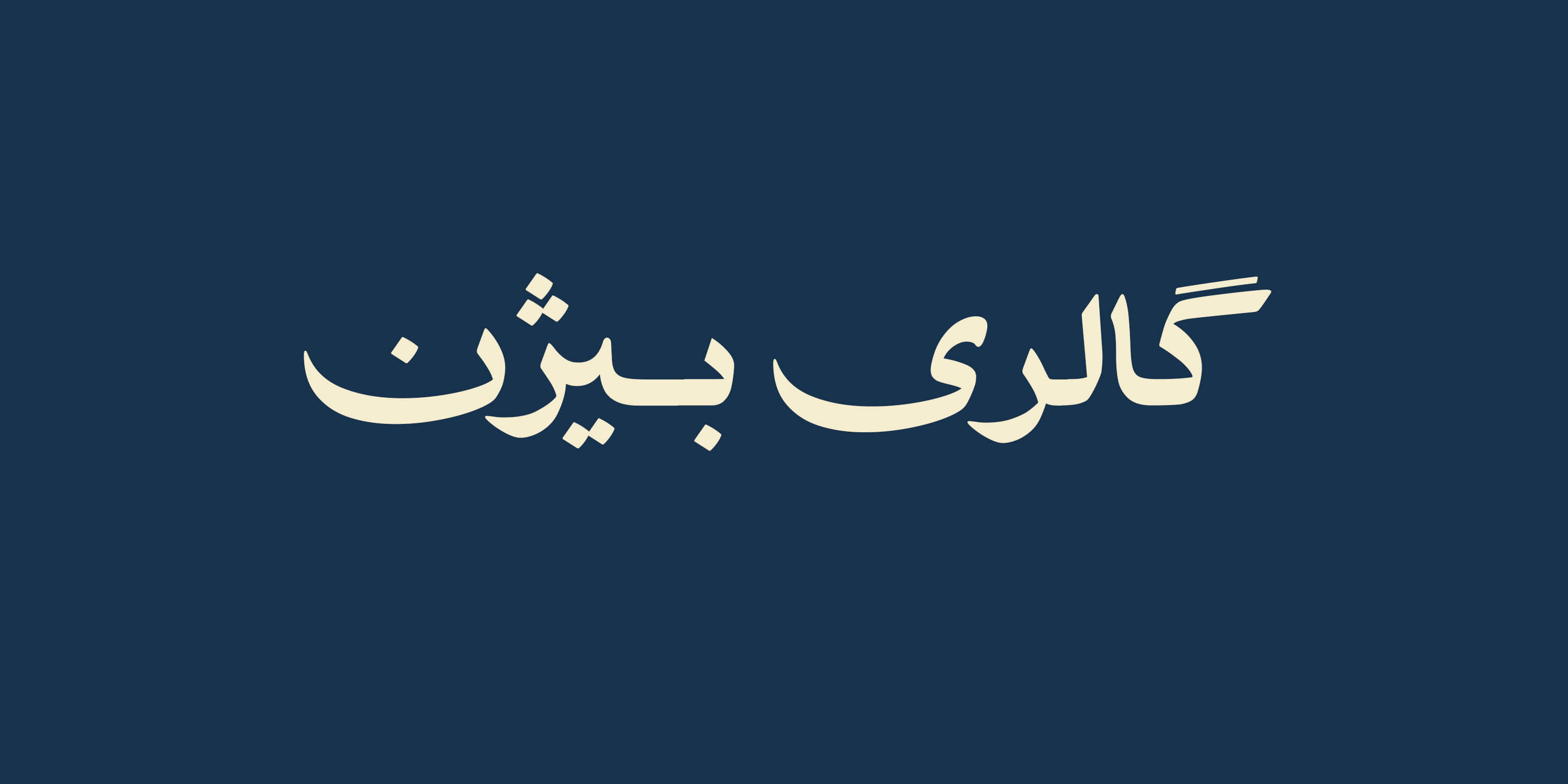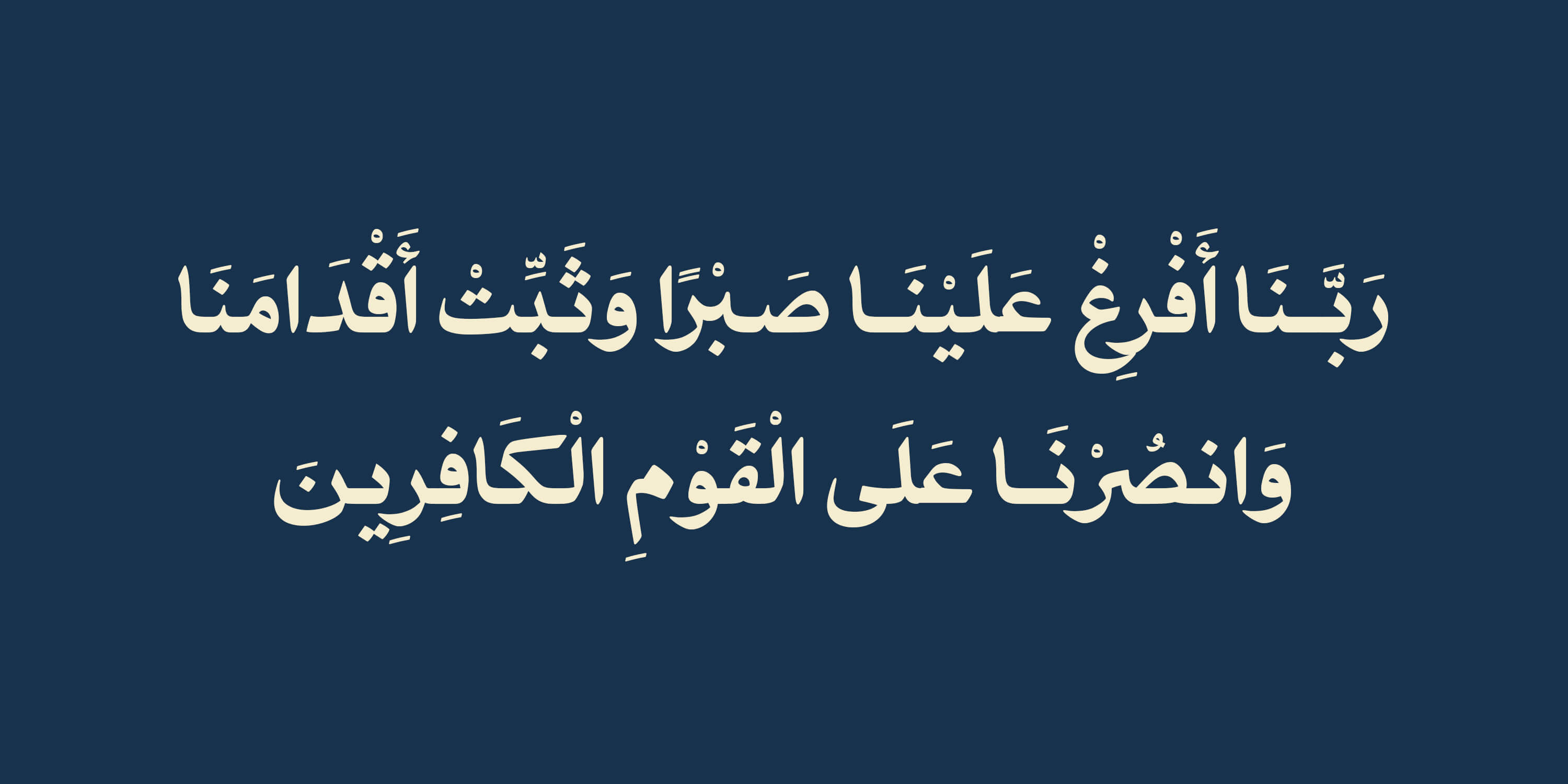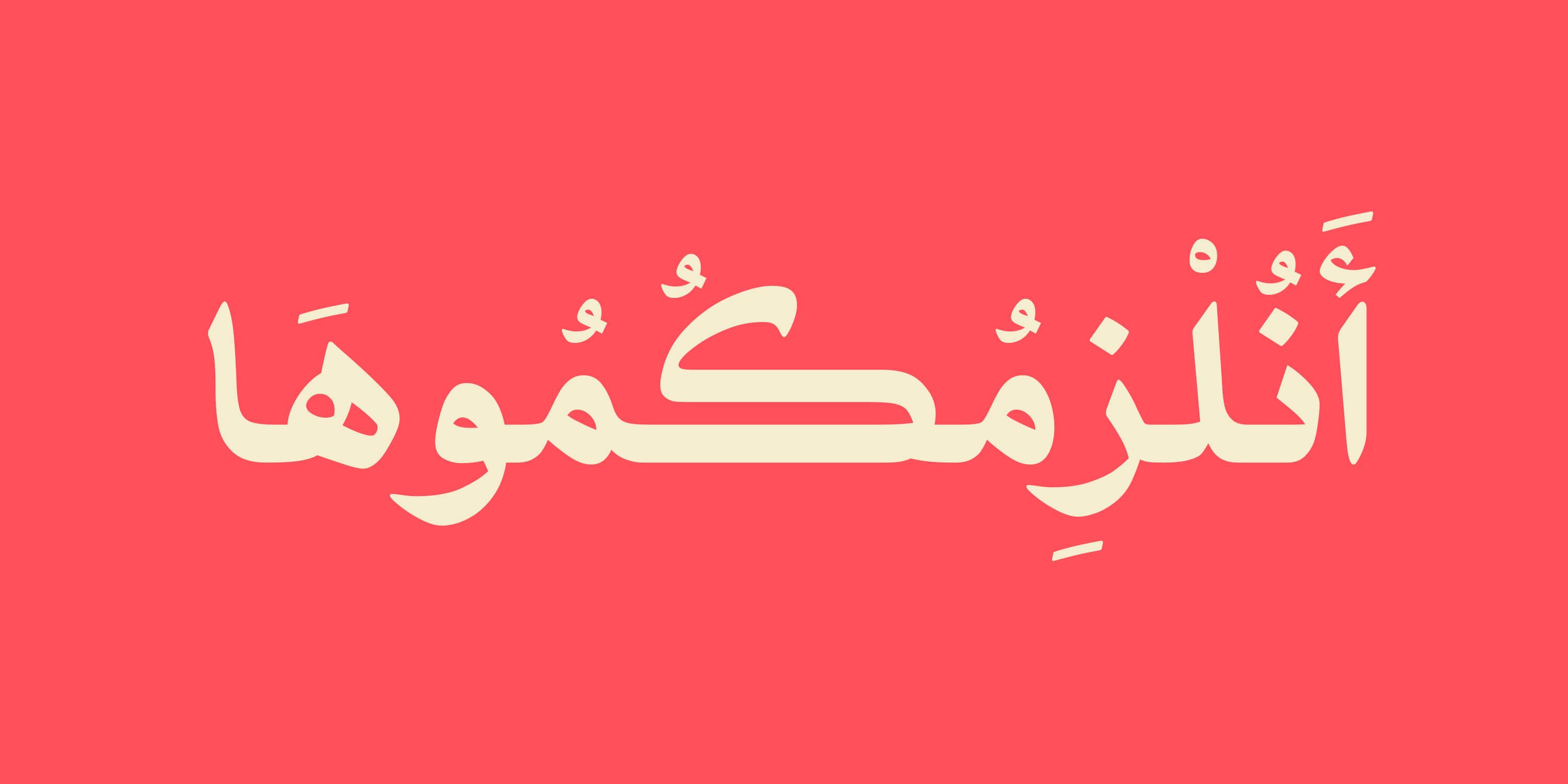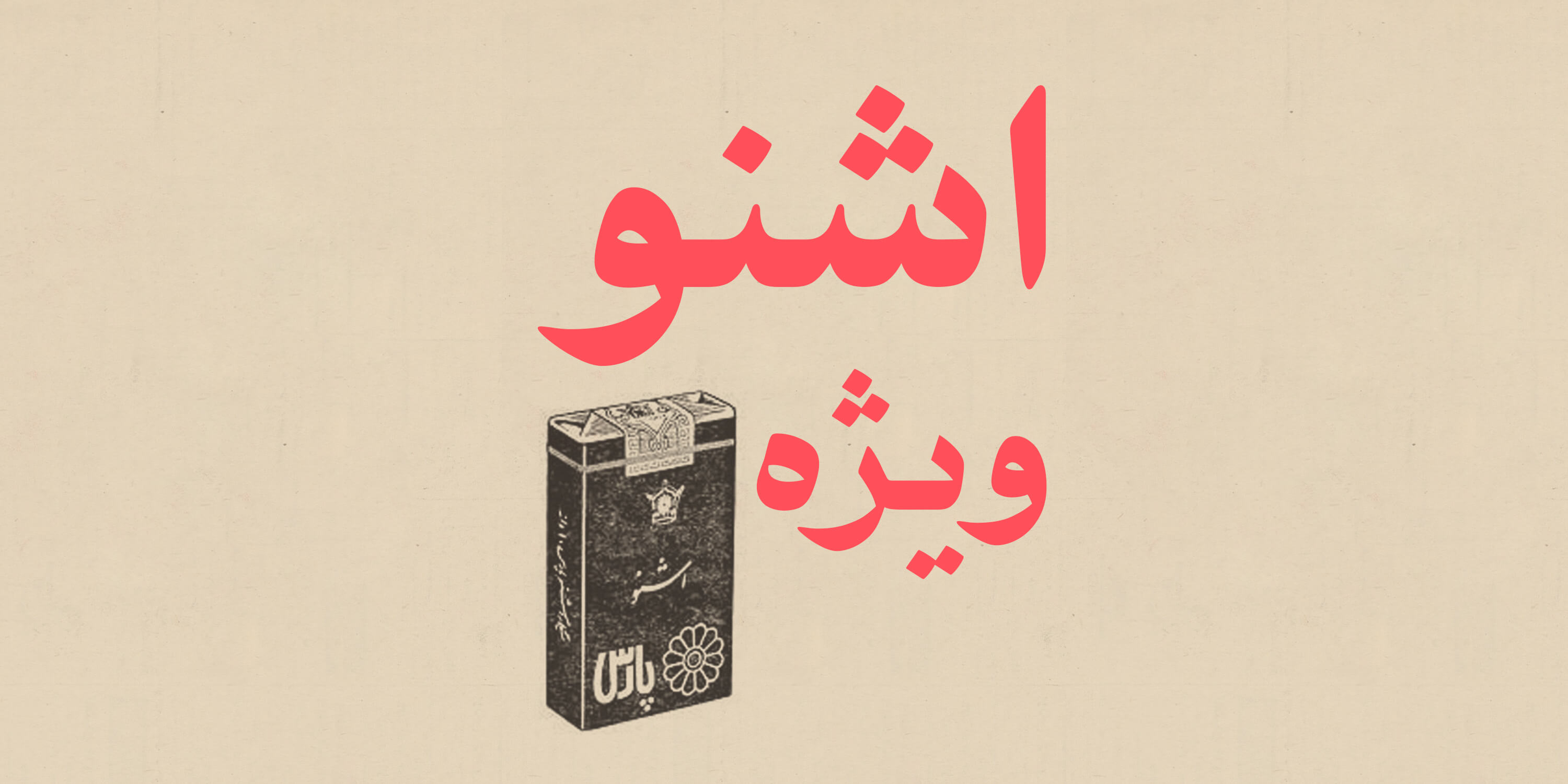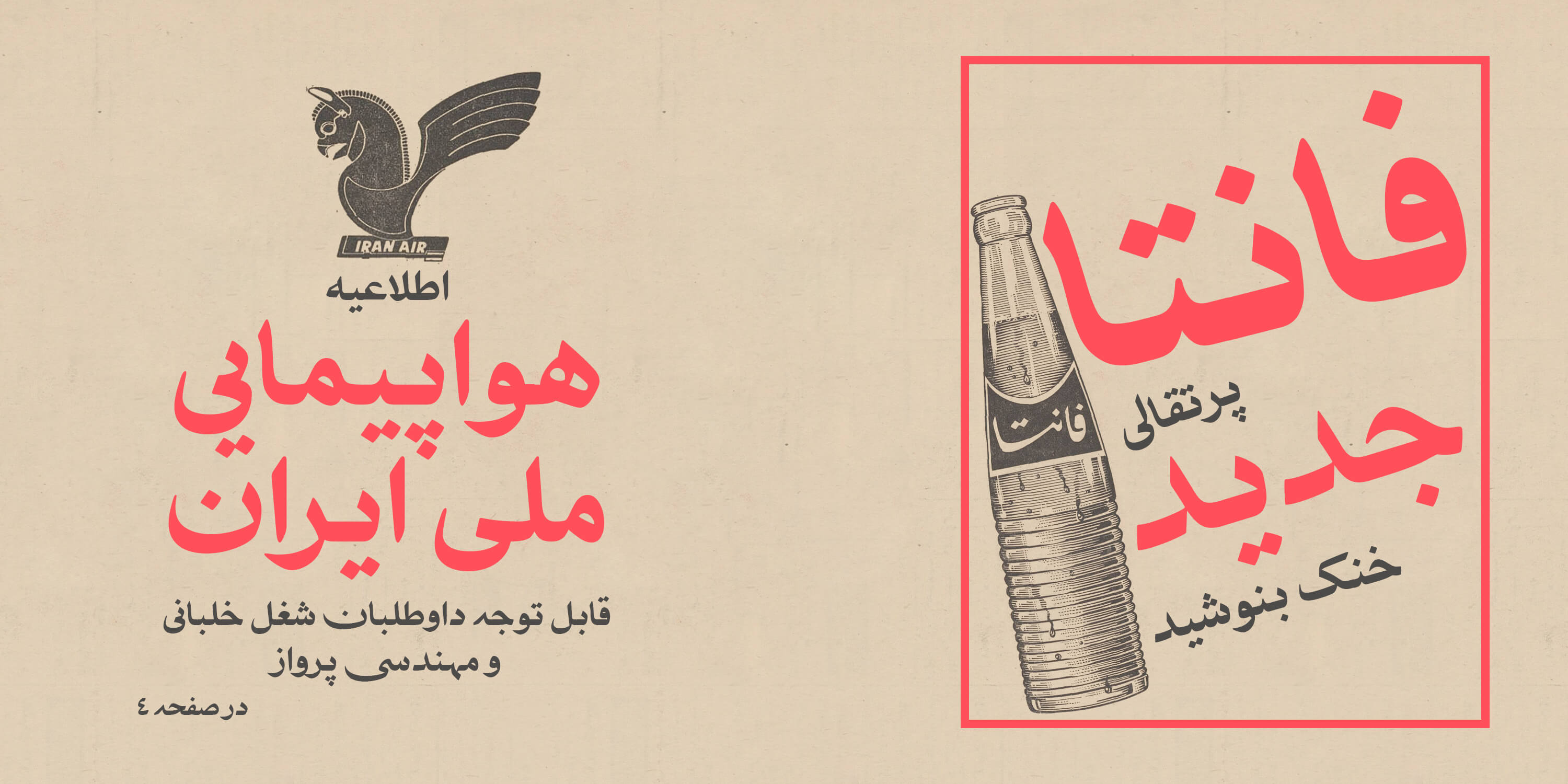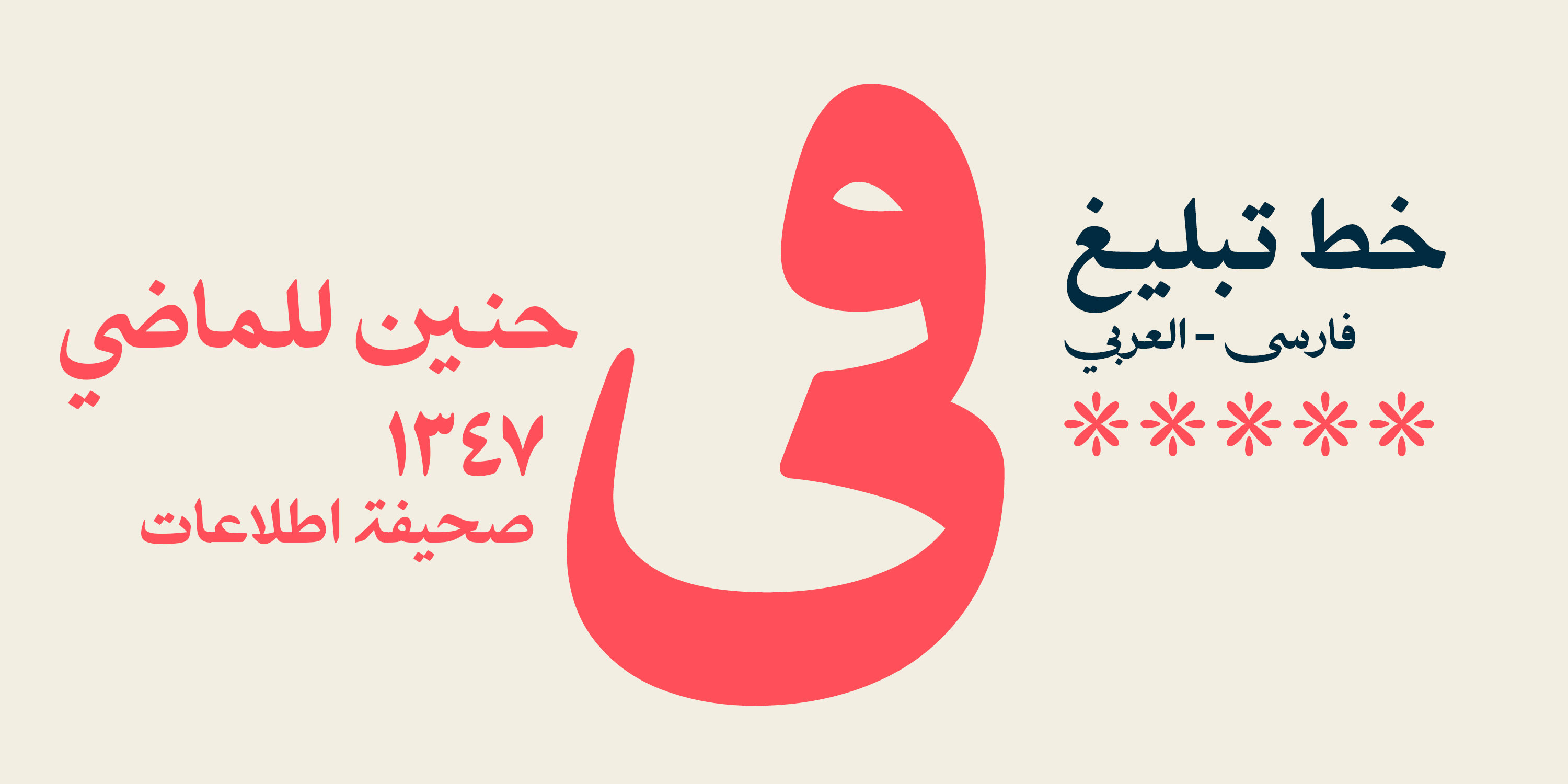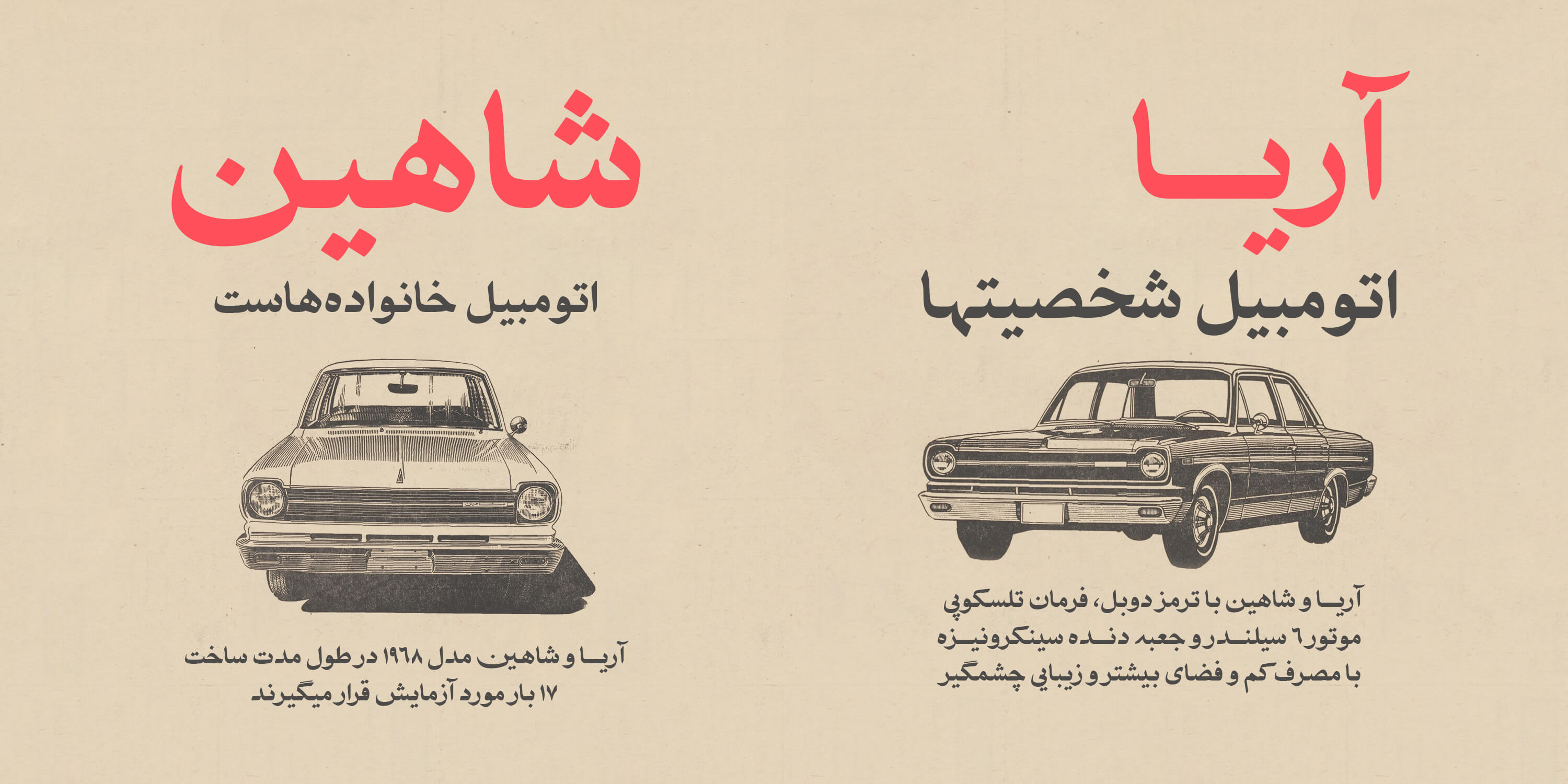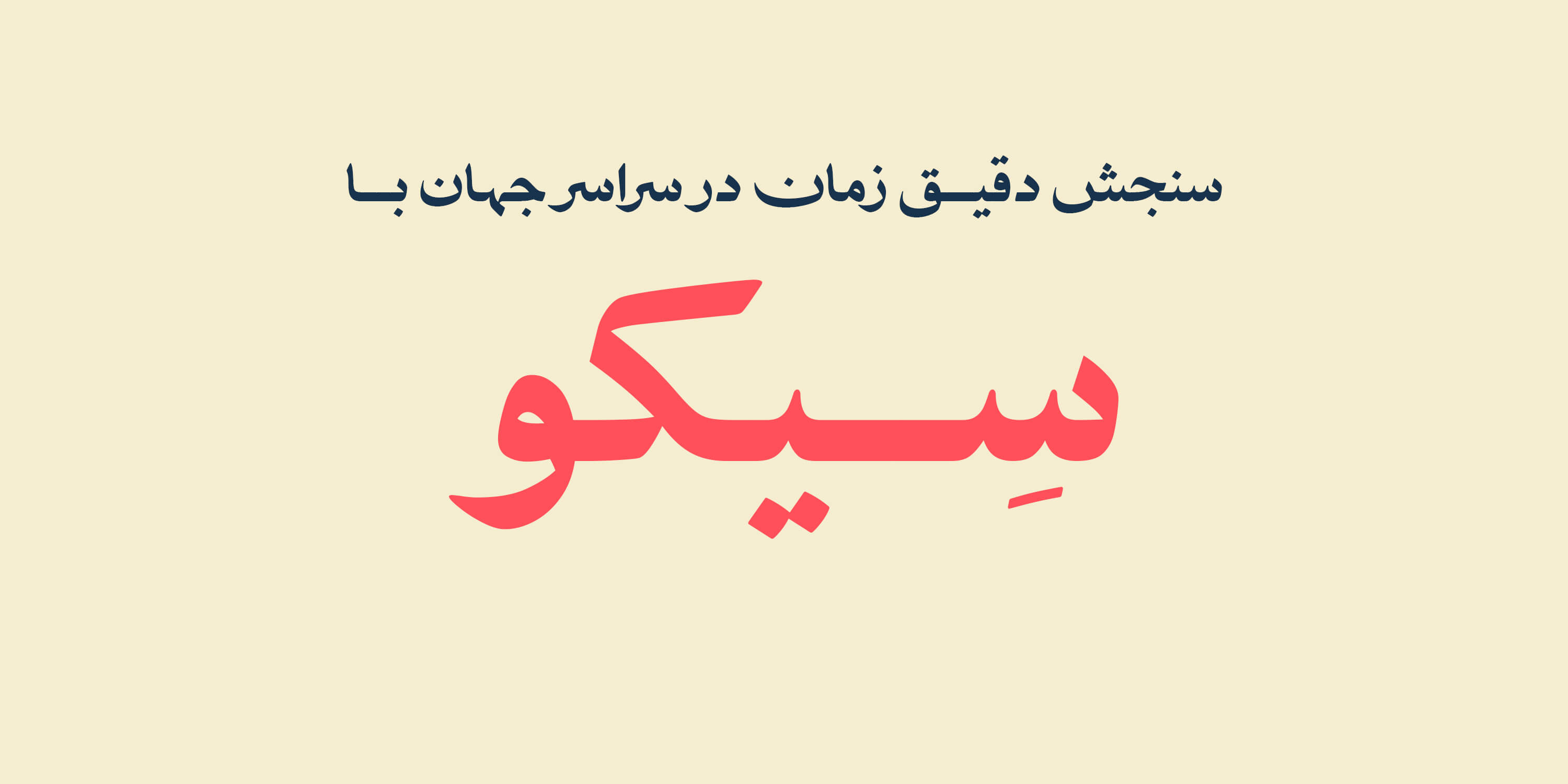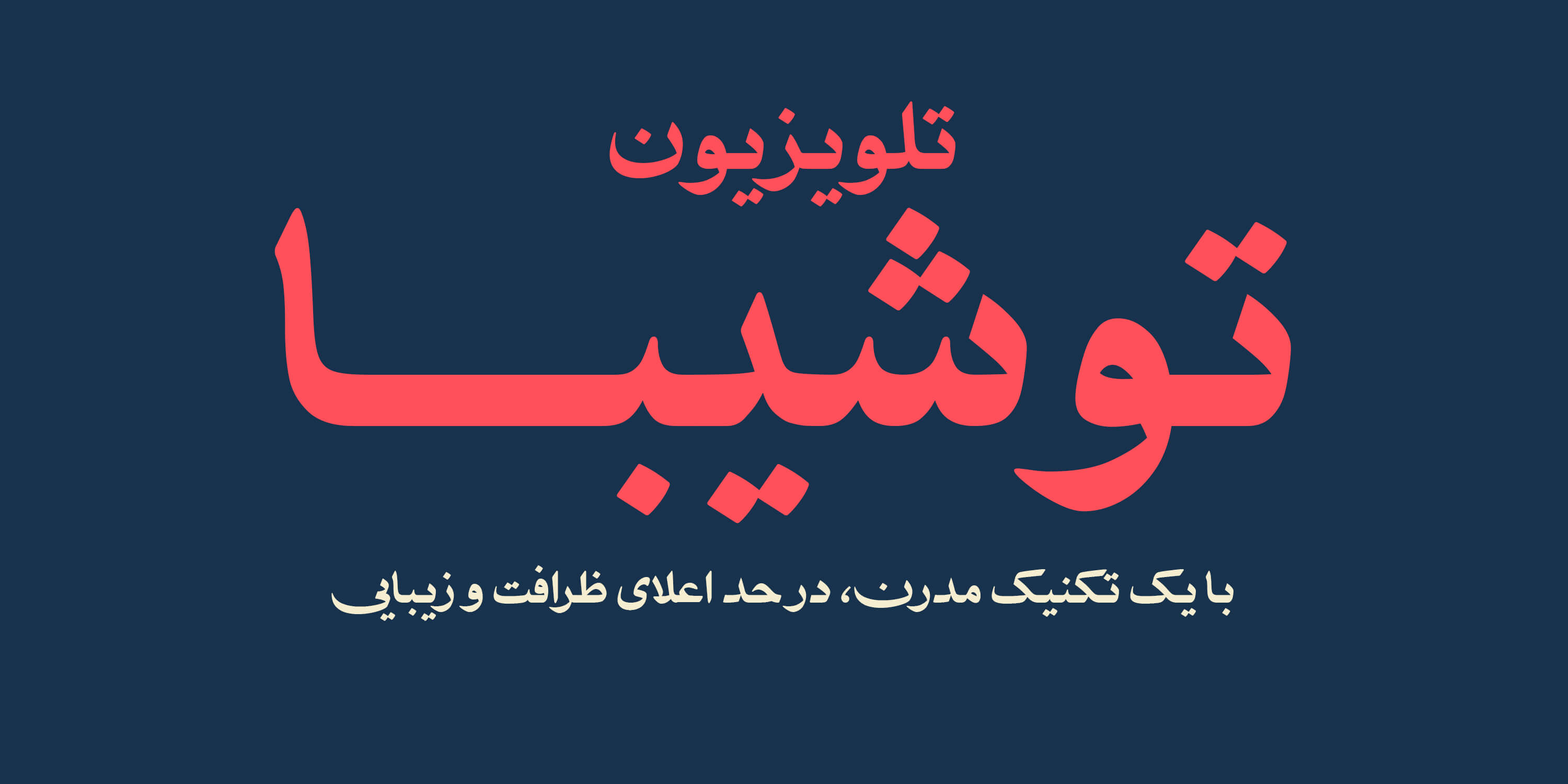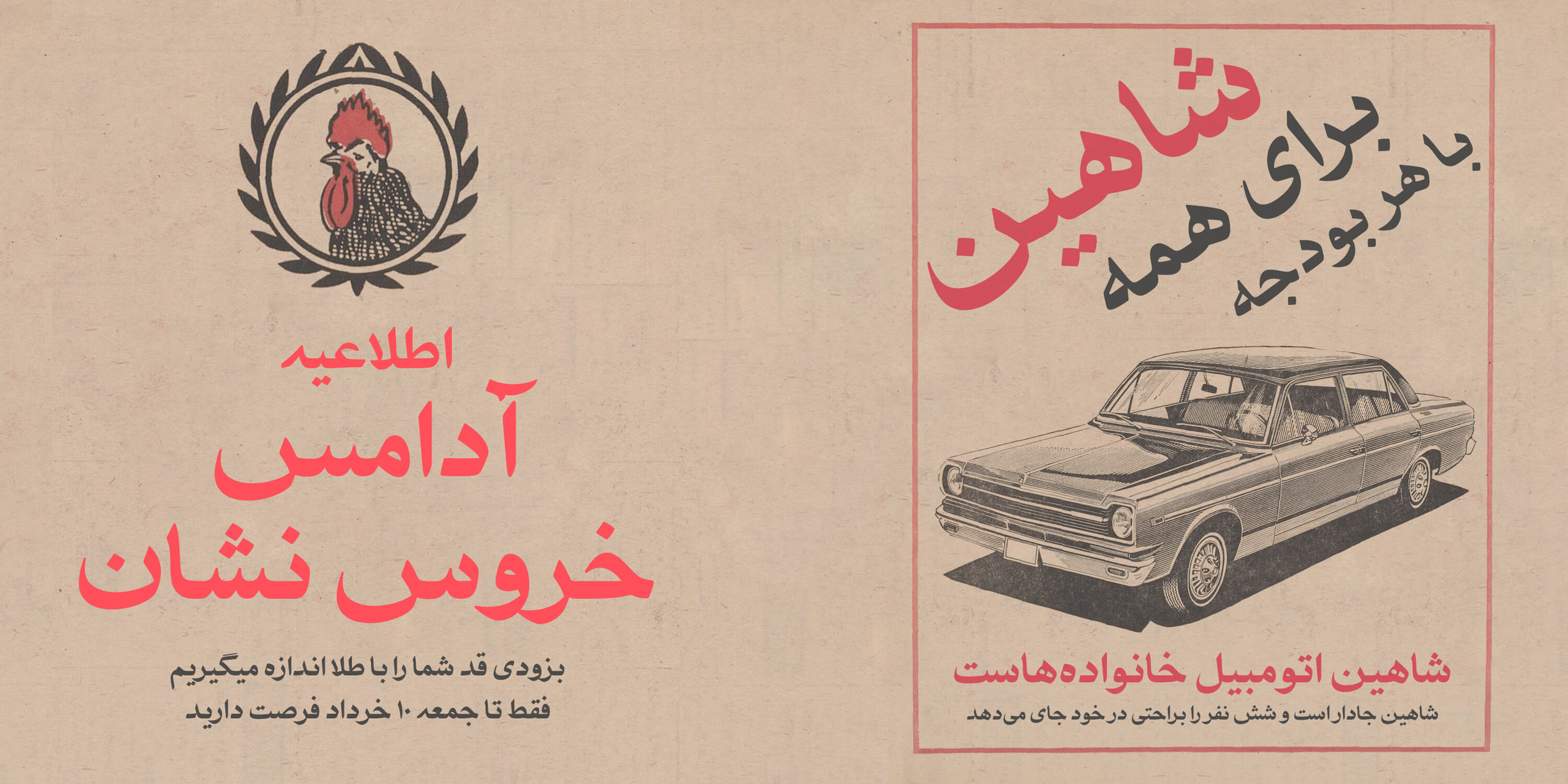
Tabliq
Tabliq is a display typeface inspired by the handwritten advertisements found in old newspapers, where bold, simple, and friendly lettering formed the core of visual communication. In that era, ads were written by hand with strokes that combined warmth, speed, spontaneity, and craftsmanship. This human and authentic quality became the main inspiration behind the creation of this font.
During the early stages of designing Tabliq, a wide collection of letterforms and handwritten samples was carefully studied. From these, the strongest and most well-preserved shapes were selected to form a solid visual foundation for the typeface. But the design process did not stop at mere reconstruction. Every glyph went through multiple rounds of redesign, refinement, and polishing—from adjusting curves and stroke weights to improving writing rhythm, enhancing readability, harmonizing texture, and balancing the nostalgic feel with modern usability.
These edits were carried out with meticulous precision, ensuring that each character preserved the spirit of handwriting while meeting the standards of contemporary type design. The result is a typeface that not only evokes the nostalgic charm of past advertisements but also performs professionally, clearly, and reliably in today’s projects.
• Advertising headlines and posters
• Packaging and branding with a vintage personality
• Cultural, artistic, and nostalgic designs
• Digital interfaces that need a warm, human touch
Persian , Arabic